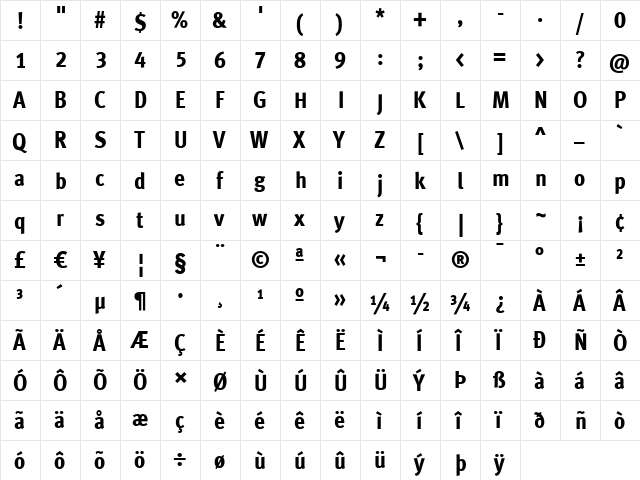
MetaCondExtraBoldLF Roman Font Preview
| Foundry | Erik Spiekermann, Ole Schaefer, . Published by FontShop International for FontFont Release MetaCondensed is a trademark of FSI Fonts and Software GmbH |
Design Context for MetaCondExtraBoldLF Typeface
MetaCondExtraBoldLF takes a measured approach to typography — its balanced proportions and neutral character make it a reliable workhorse for both digital and print work. Its bold stroke weight gives it real presence on the page. The condensed width makes it efficient for tight spaces without sacrificing legibility.